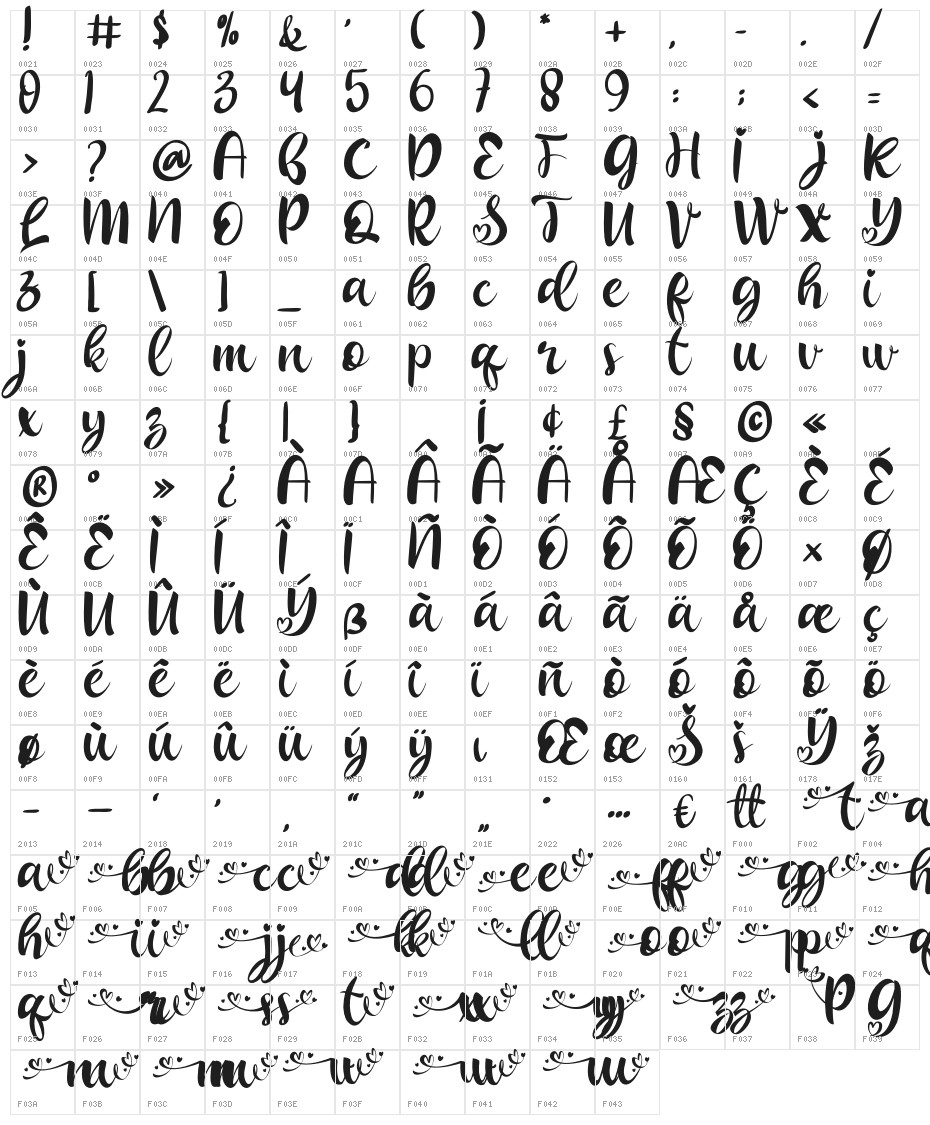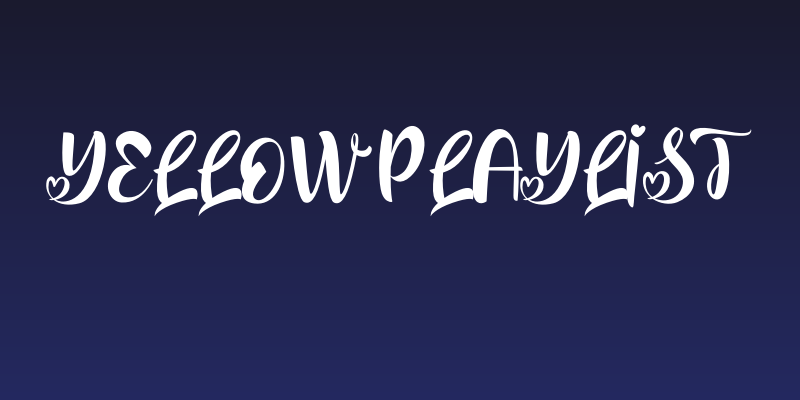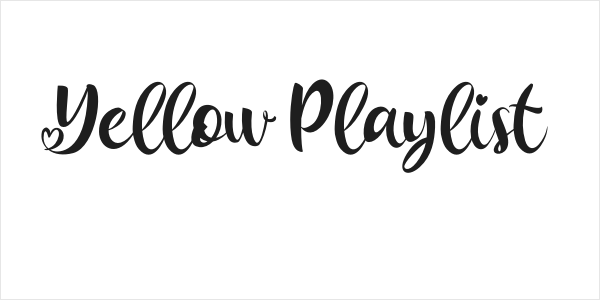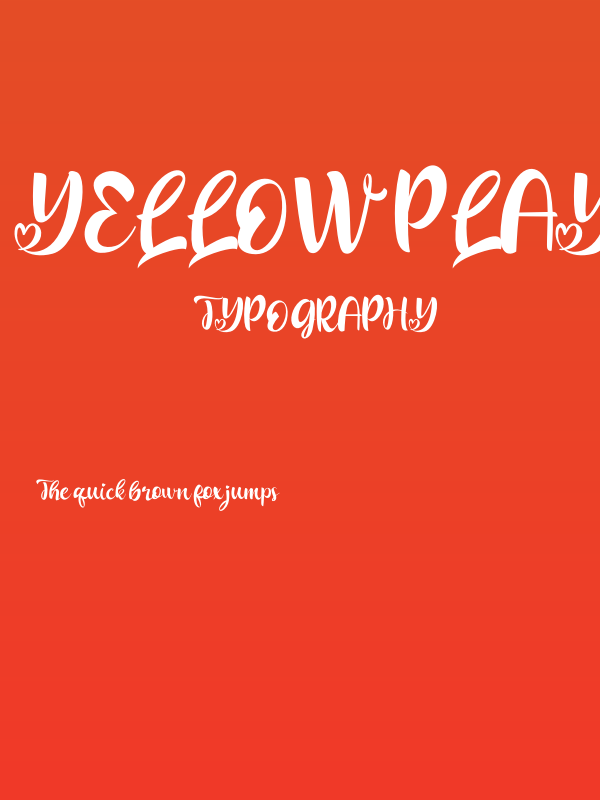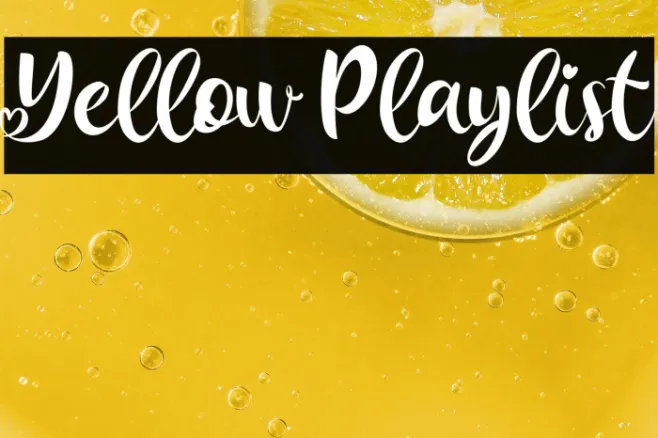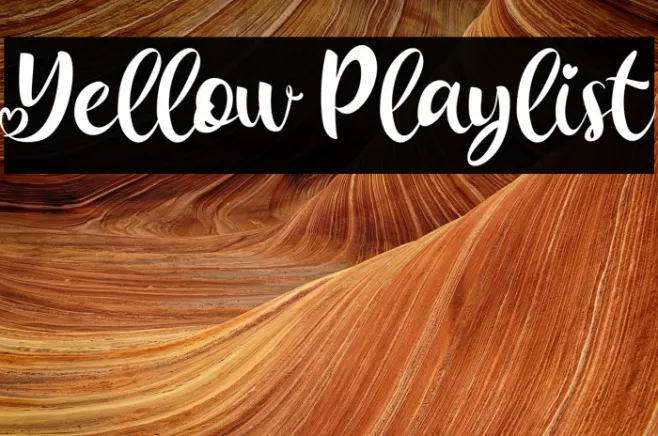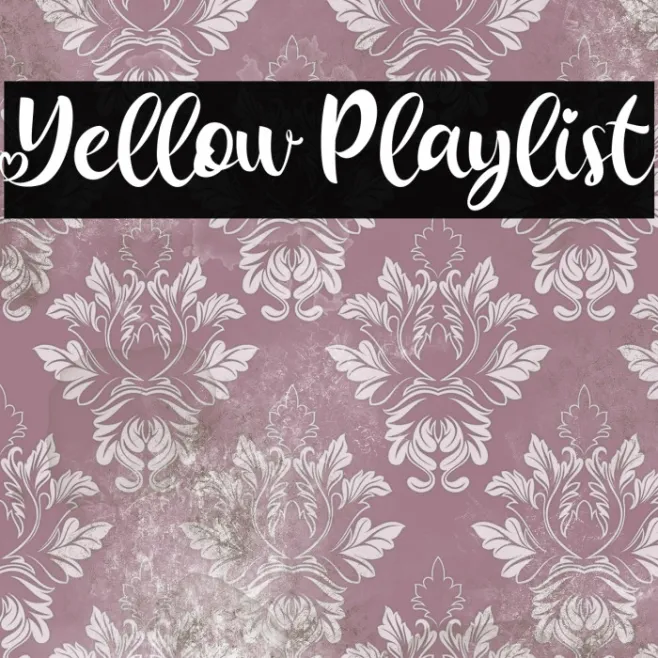
Yellow Playlist Font
Yellow Playlist Description
This font features a lively and expressive script style, characterized by its bold and flowing letterforms. The uppercase letters are particularly dynamic, with a playful mix of thick and thin strokes that create a sense of movement and energy. The lowercase letters maintain this fluidity, with some characters featuring unique loops and swirls that add to the font's charm. The numbers are equally bold, ensuring they stand out in any design. Special characters are included, maintaining the same energetic style. Overall, this font exudes a sense of fun and creativity, making it ideal for projects that require a personal touch.